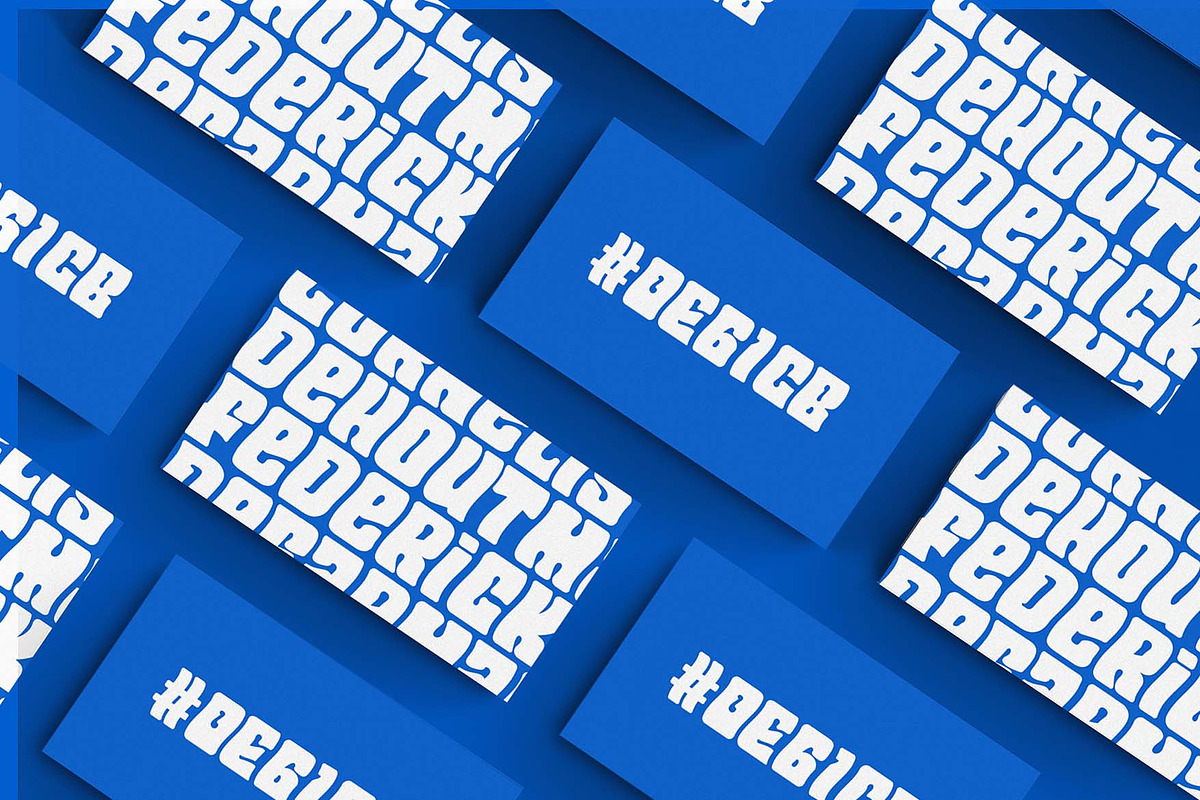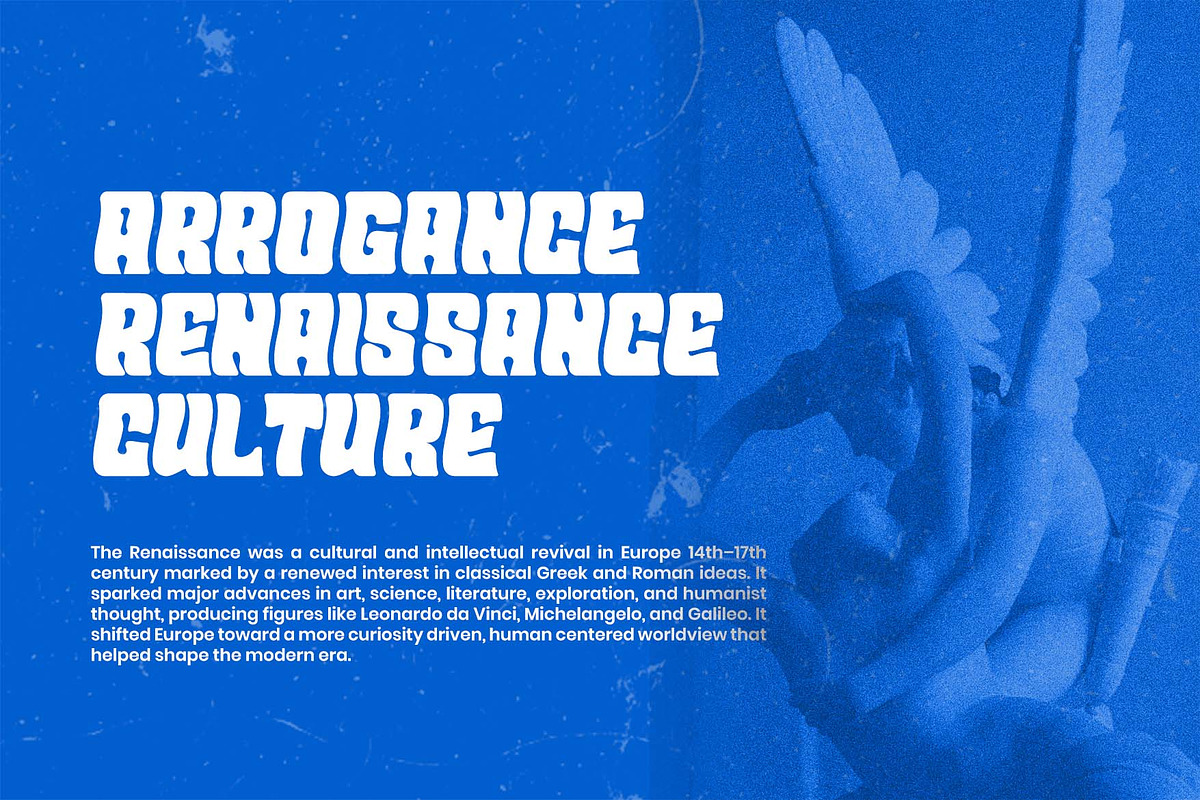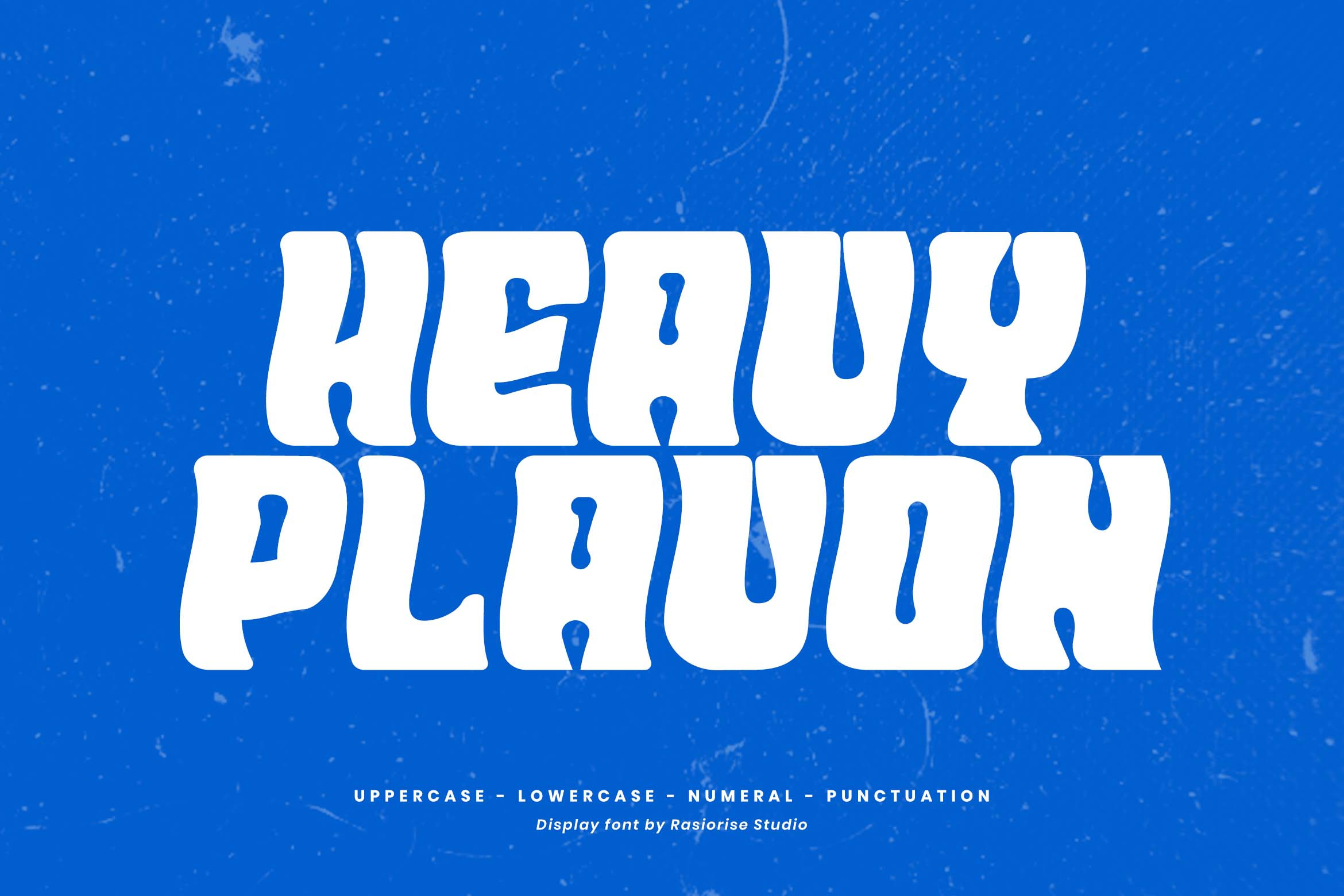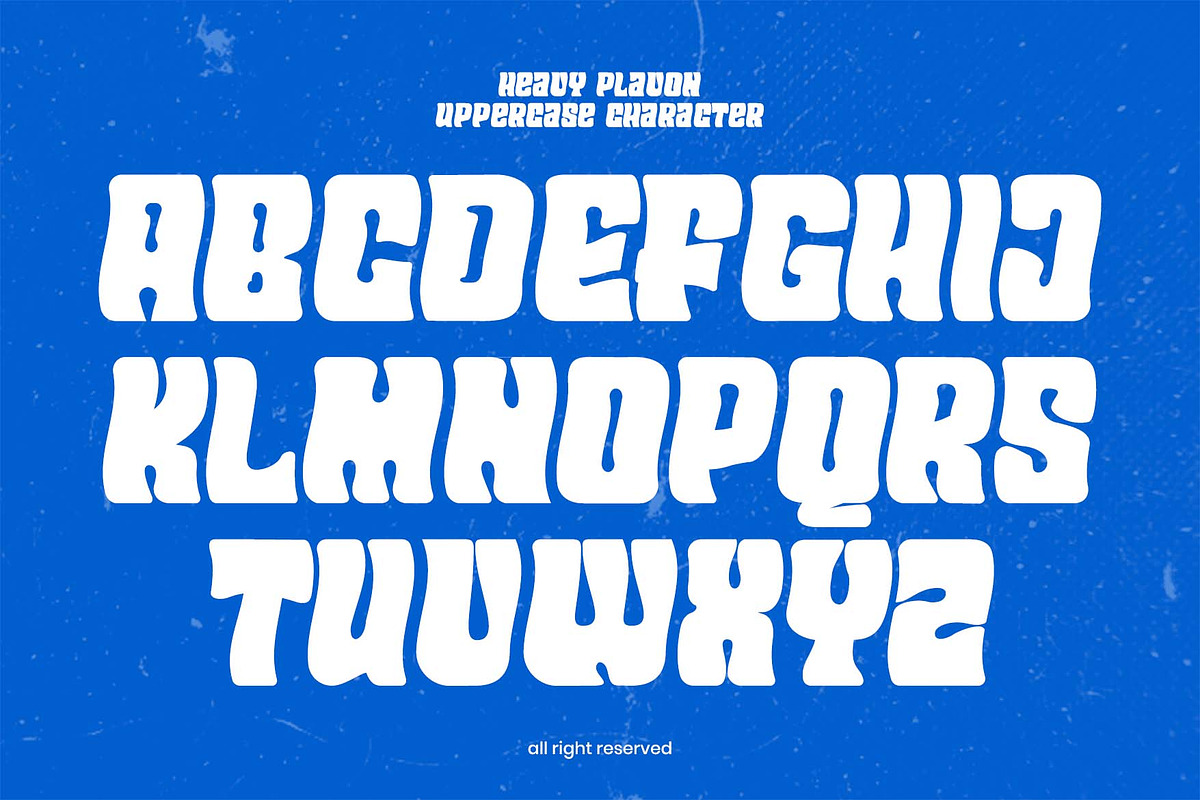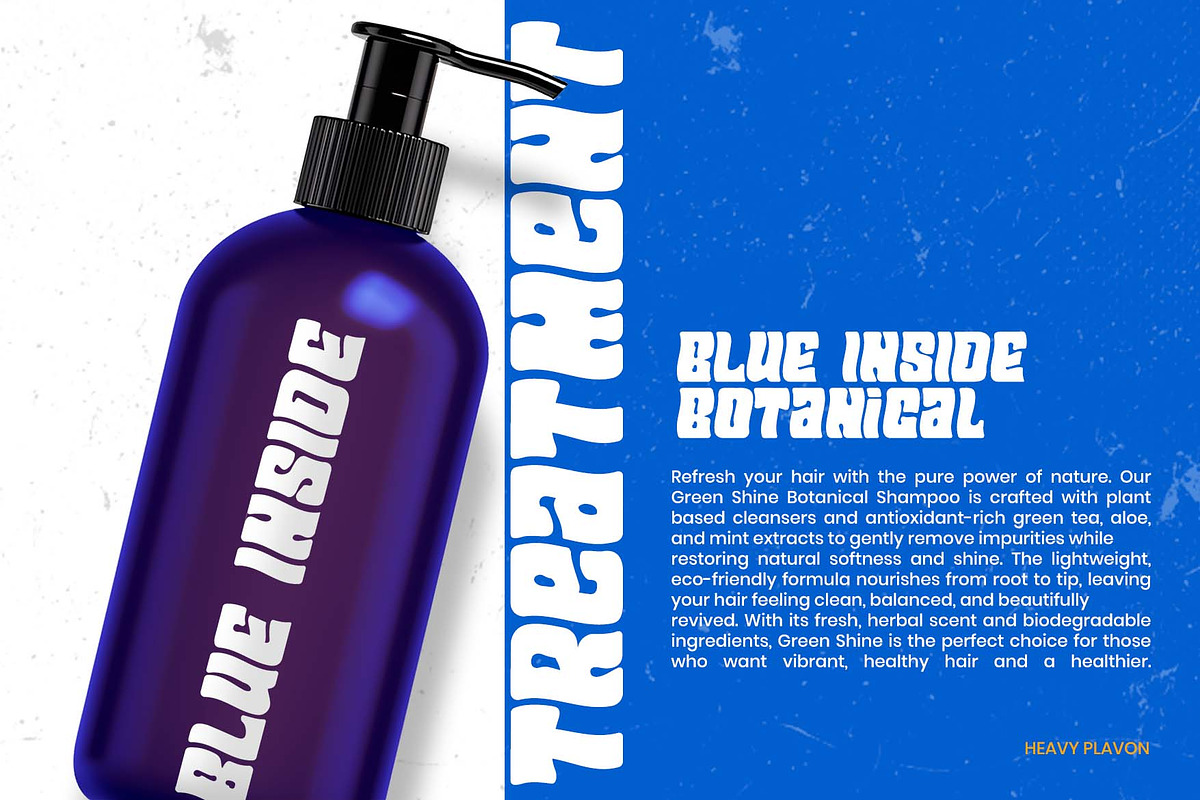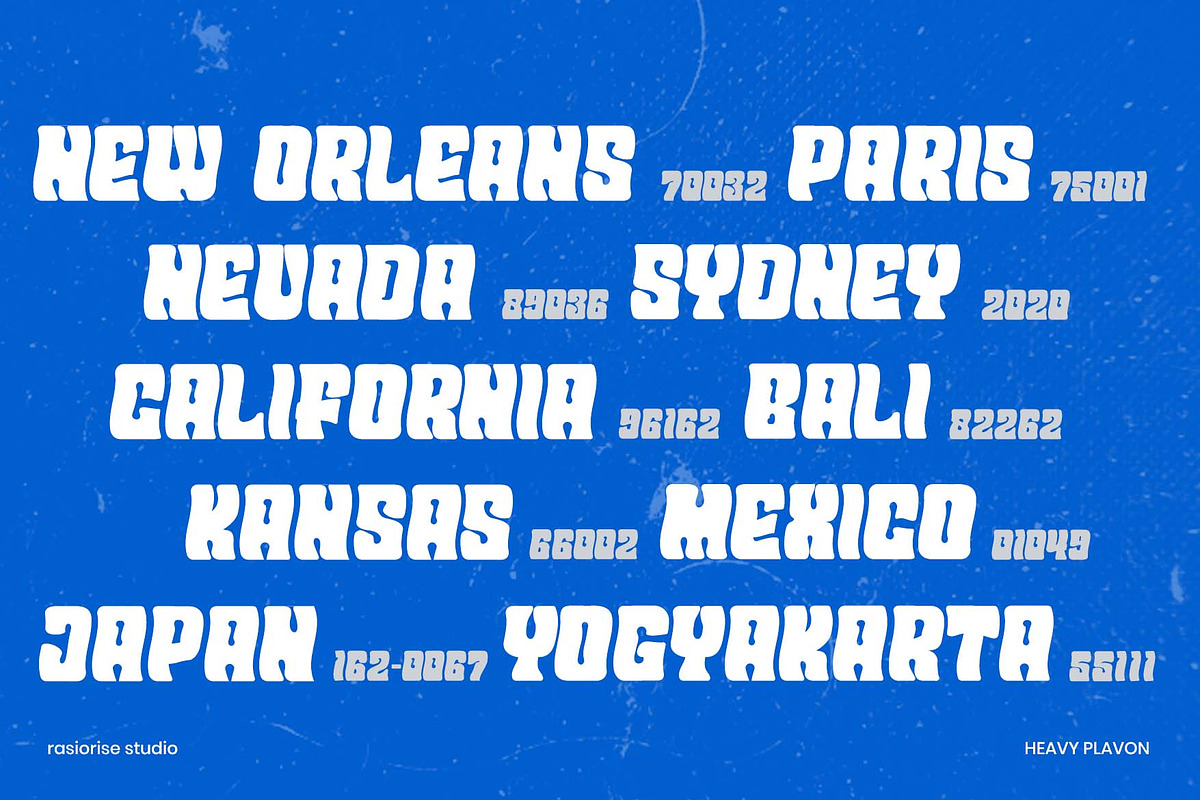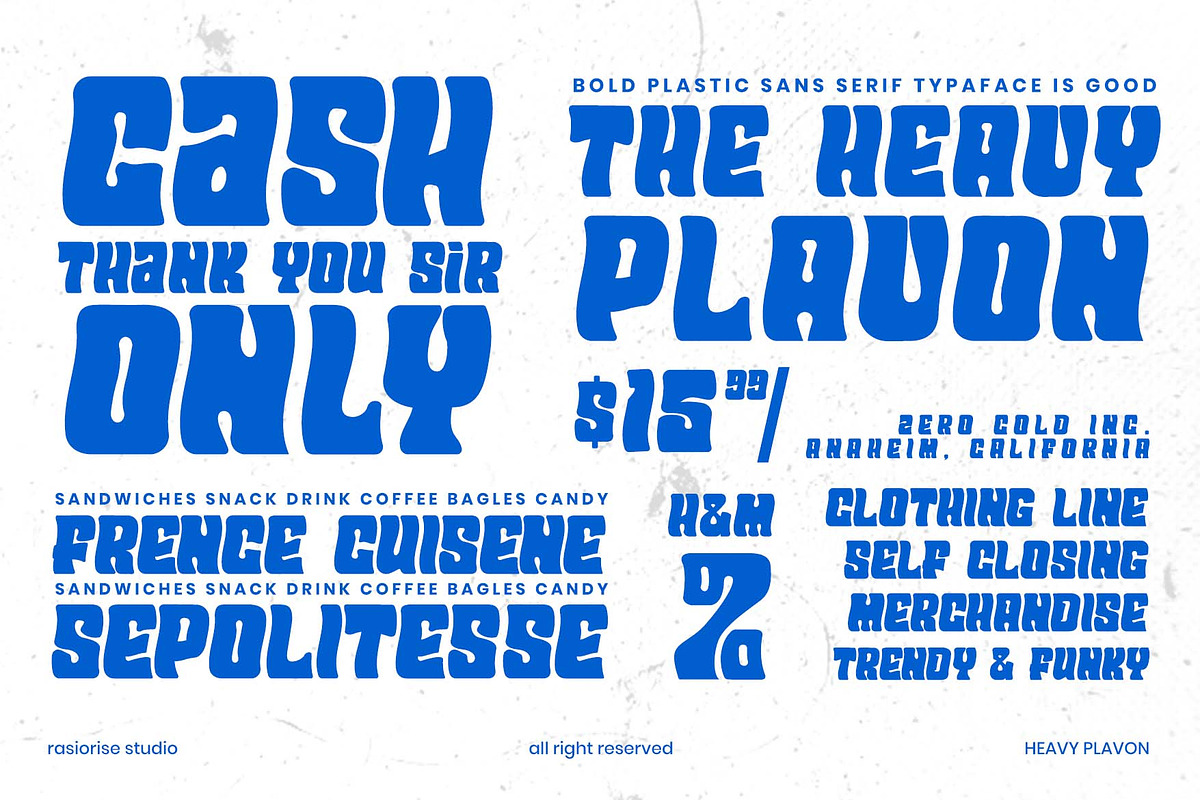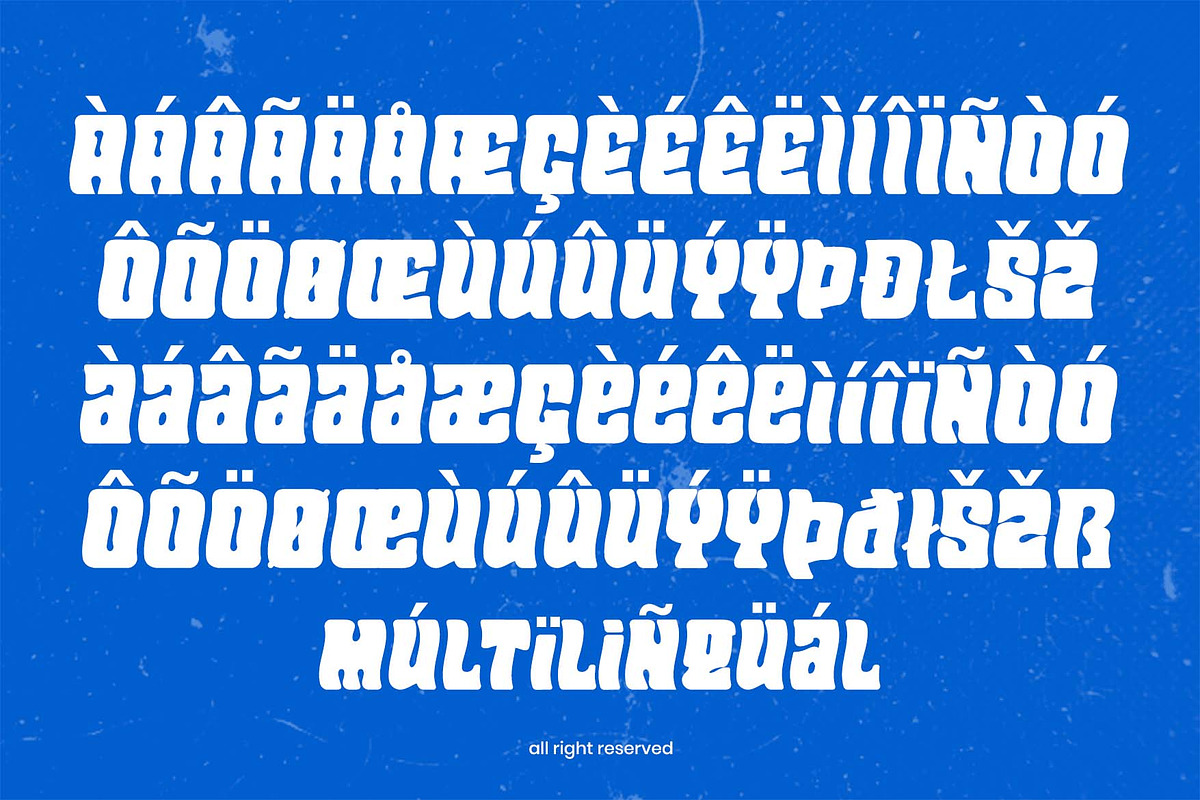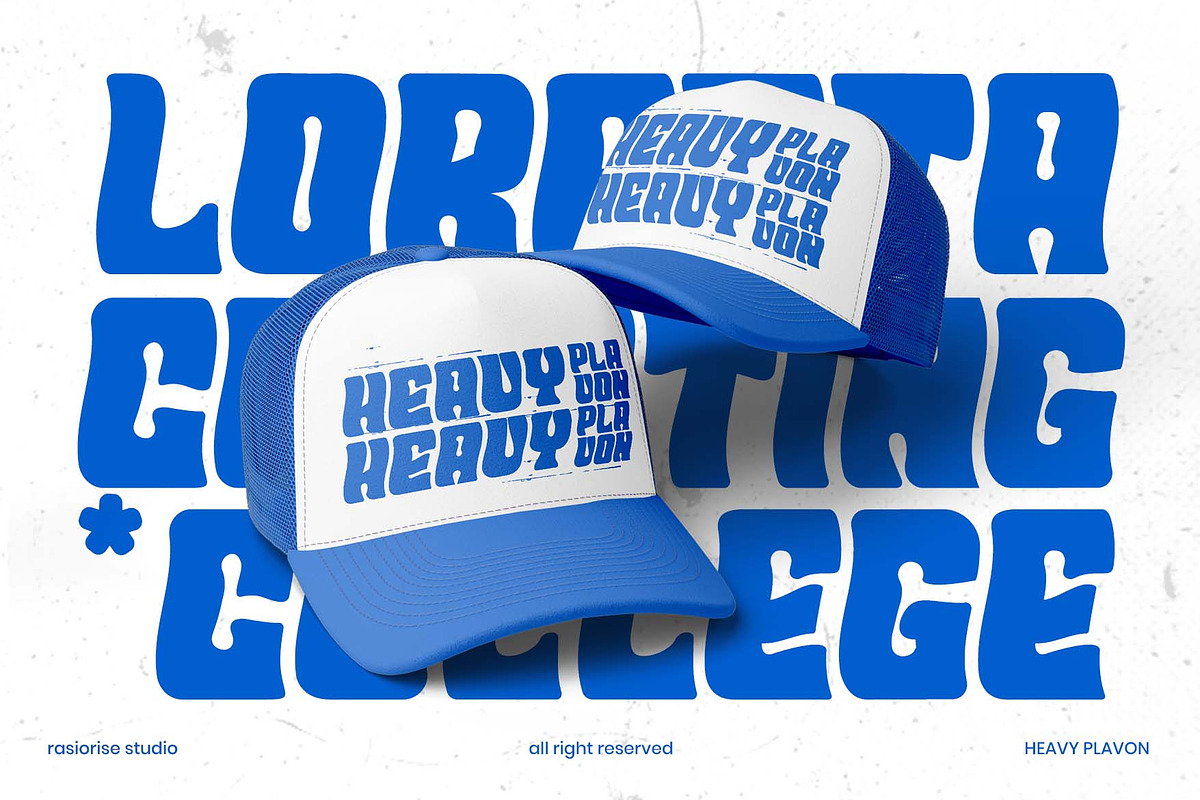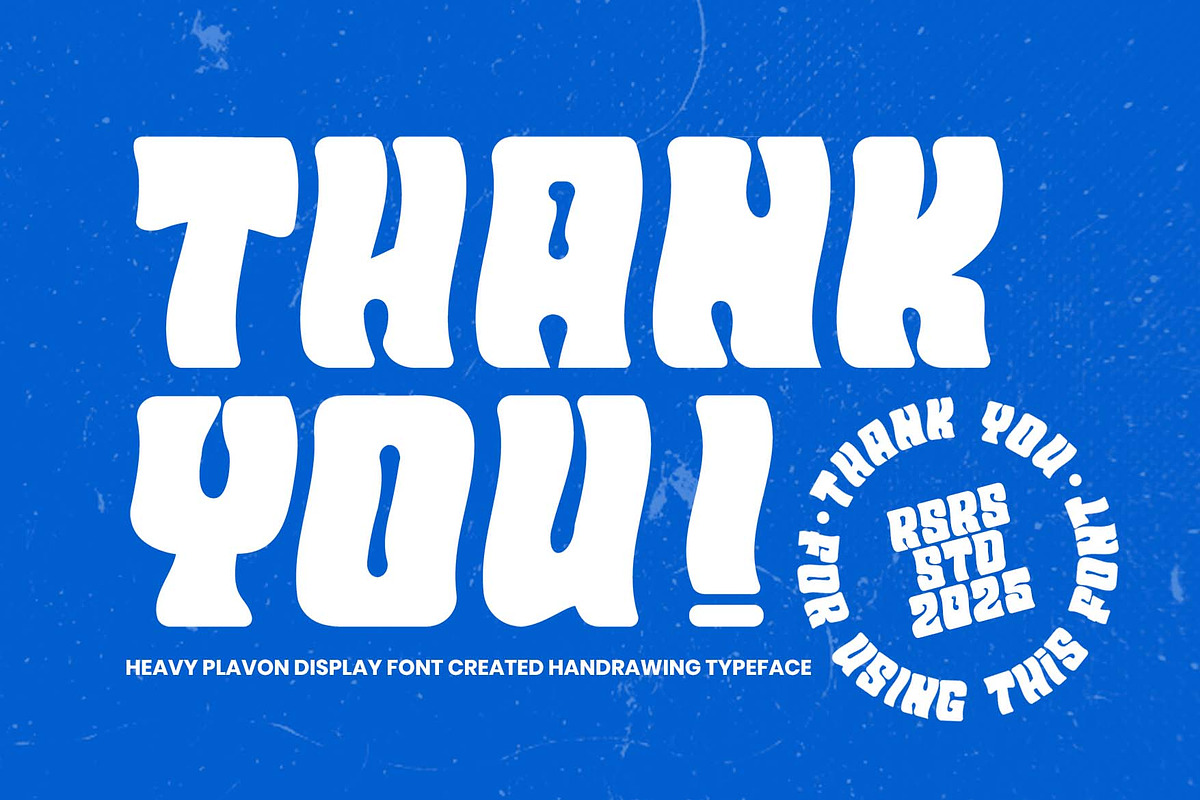
Heavy Plavon Font
Hi Everyone! Heavy Plavon Font very suitable for Logotype, Book Cover, Music Festival, Event Branding, Gretting Card, Poster, Merchandise, Label, Packaging Label and much more.
- Numeral, Punctuation & Symbol